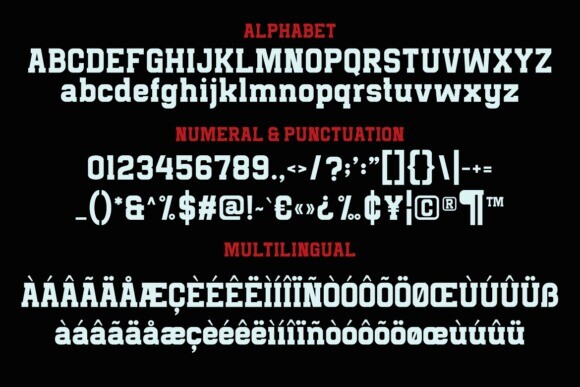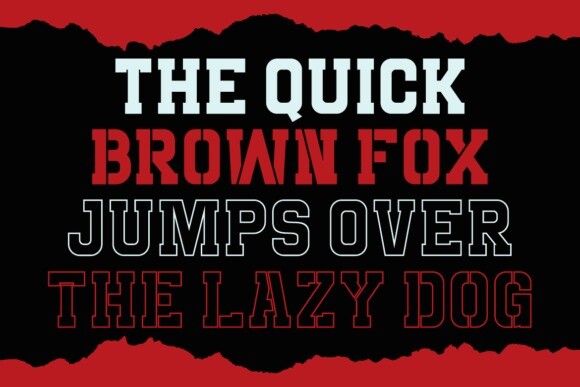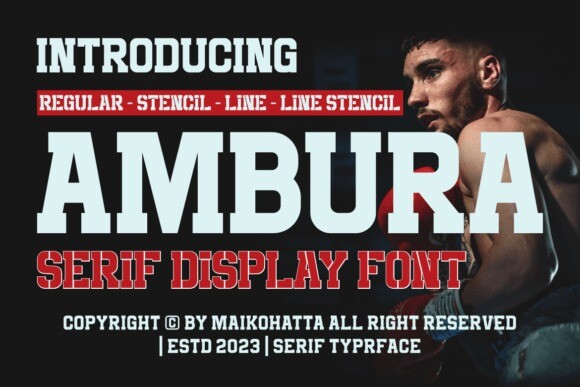
Ambura Font
Ambura Font is a bold and assertive serif font. No matter the topic, this font will be an incredible asset to your fonts’ library, as it has the potential to elevate any creation.